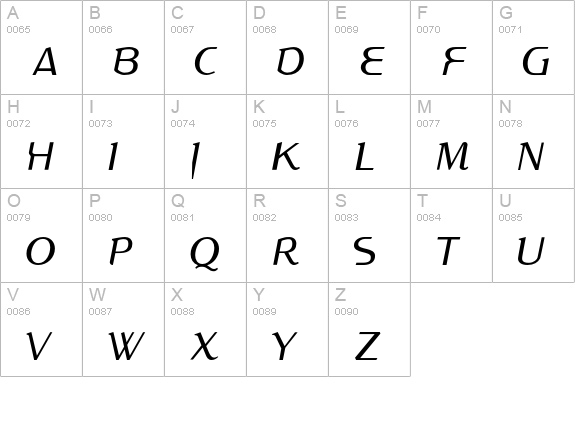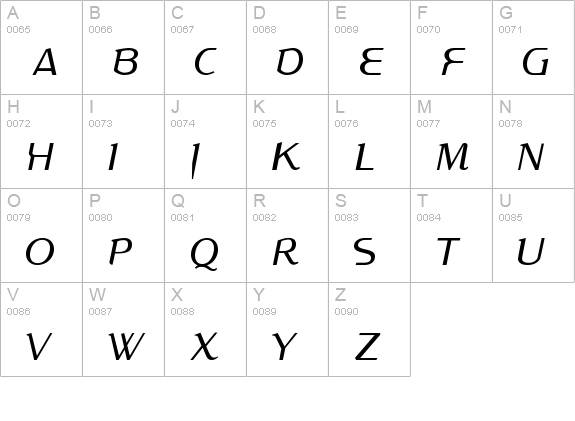
XYPERFORMULAIC-20S Font Details
XYPERFORMULAIC-20S font is a sleek and modern typeface perfect for adding a touch of sophistication to your designs. With its sharp edges and clean lines, this font exudes a sense of professionalism and elegance. Whether you're working on a branding project, website design, or any other creative endeavor, XYPERFORMULAIC-20S font is sure to make a bold statement. The best part? XYPERFORMULAIC-20S font is completely free to download at FontsMarket.com. This means you can enhance your projects with this stylish font without breaking the bank. Don't miss out on the opportunity to elevate your designs with XYPERFORMULAIC-20S font - download it today and let your creativity shine!